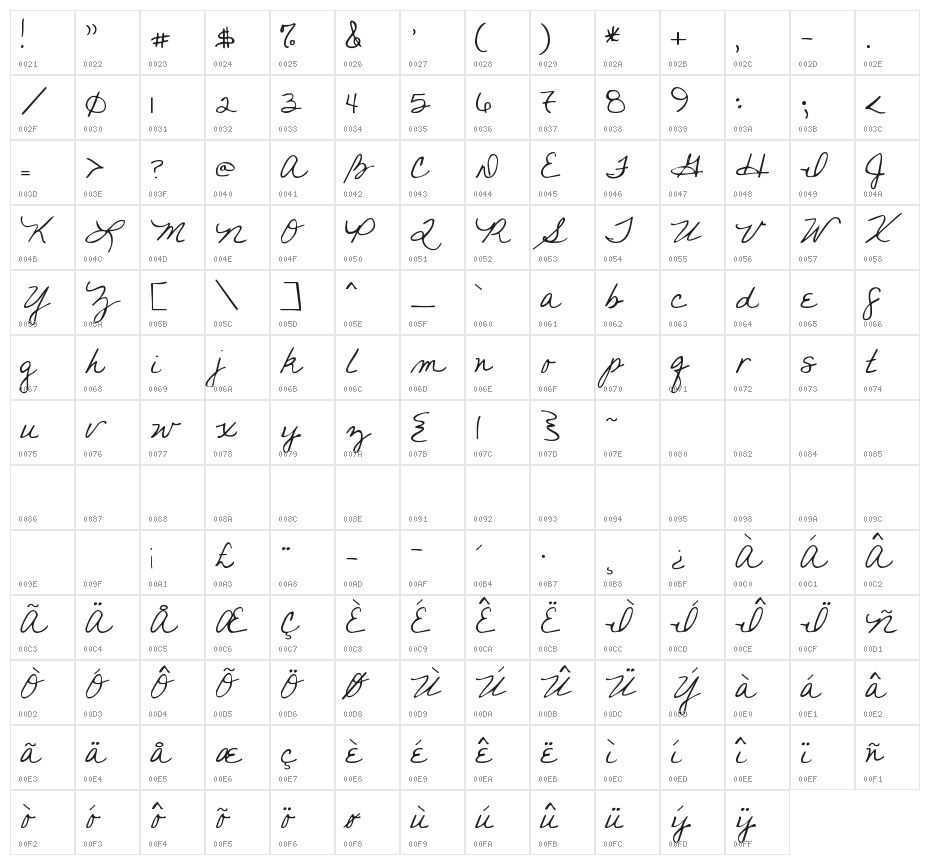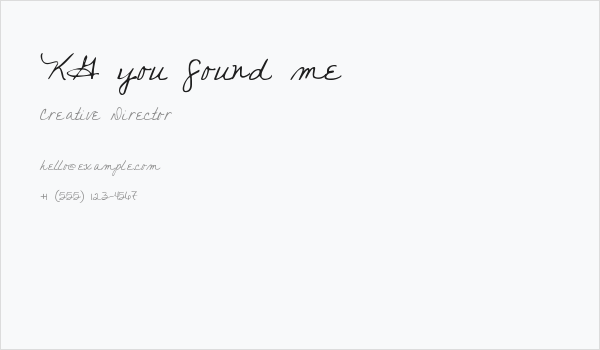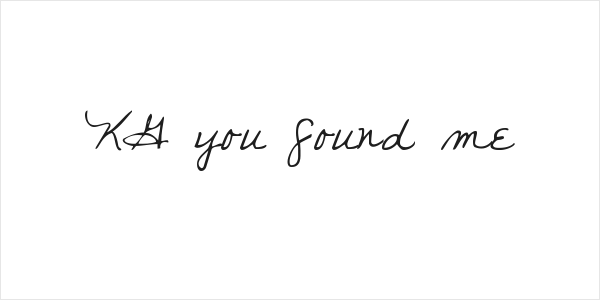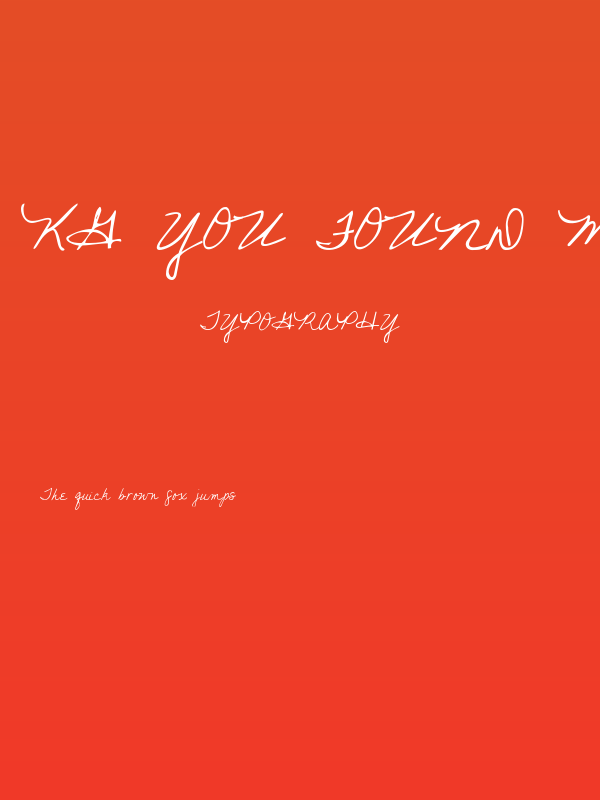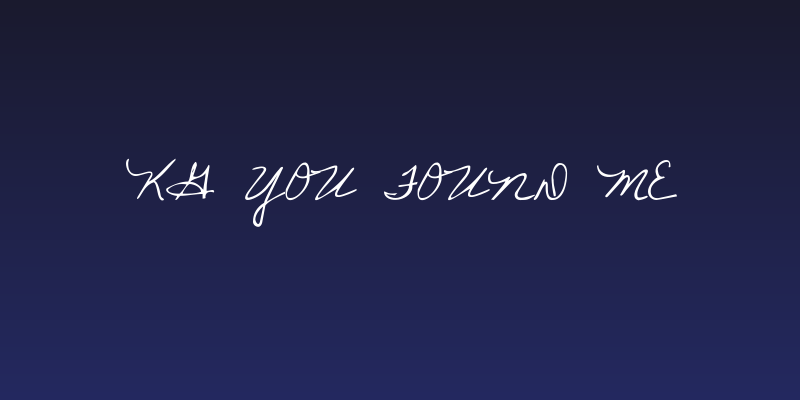
KG you found me Font
KG you found me Description
This font features a playful and casual handwritten style, characterized by its fluid and connected letterforms. The strokes are smooth and slightly irregular, giving it a natural and personal touch. The uppercase letters maintain a consistent height, while the lowercase letters vary slightly in size, enhancing the informal appearance. The numerals are rounded and match the overall style, providing a cohesive look. Special characters are integrated seamlessly, maintaining the handwritten aesthetic. This font is ideal for projects that require a personal or whimsical touch, such as invitations, greeting cards, or creative branding.
Overall StyleCasual, Playful
Use CaseHeadlines, Logos, Creative projects
Proposed ProjectsIdeal for invitations, greeting cards, personal branding, and creative projects.